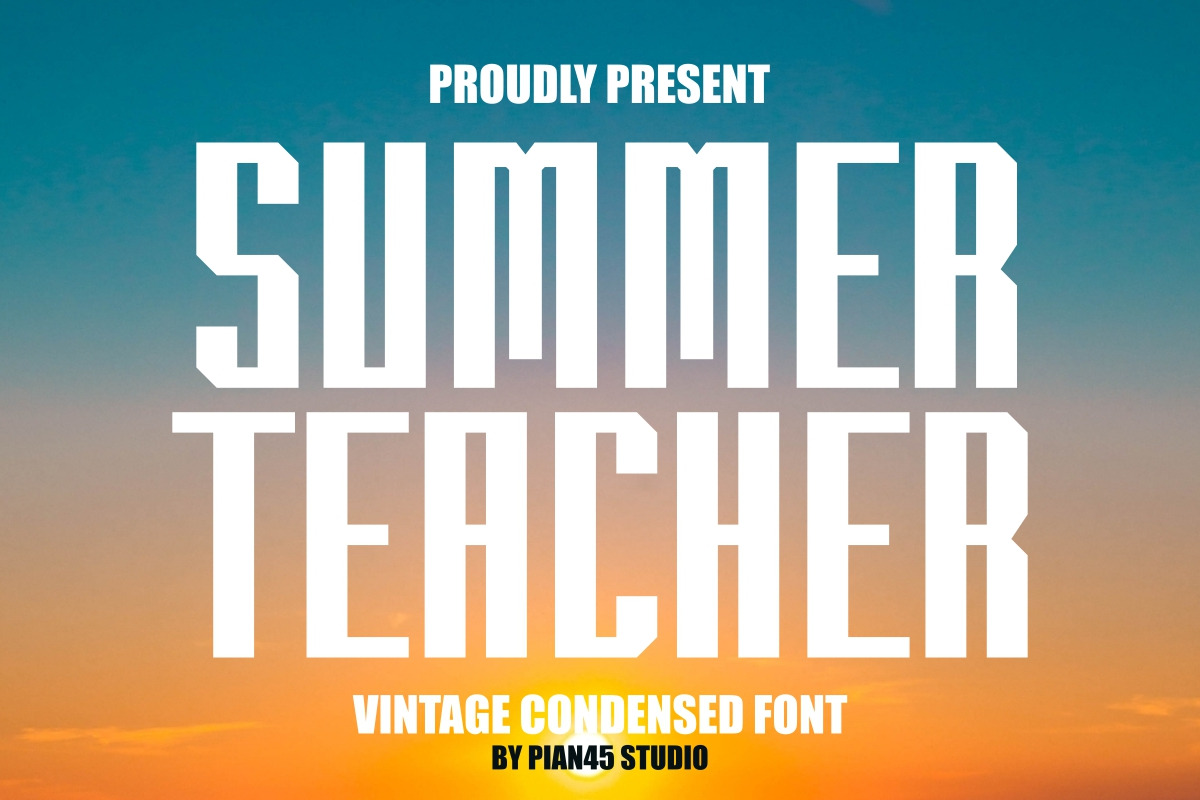
Summer Teacher - Condensed Font
Summer Teacher is a vintage classic and bold condensed sans serif font with a beautiful and captivating fashion theme. This font adding a timeless vintage touch and stylish to your creative projects. Perfect for fashion design, logo, branding, quotes, posters, backgrounds, movie title, t-shirts, mugs, tote bags, pillows, tumblers, greeting card, business cards, birthday design and sport apparel.